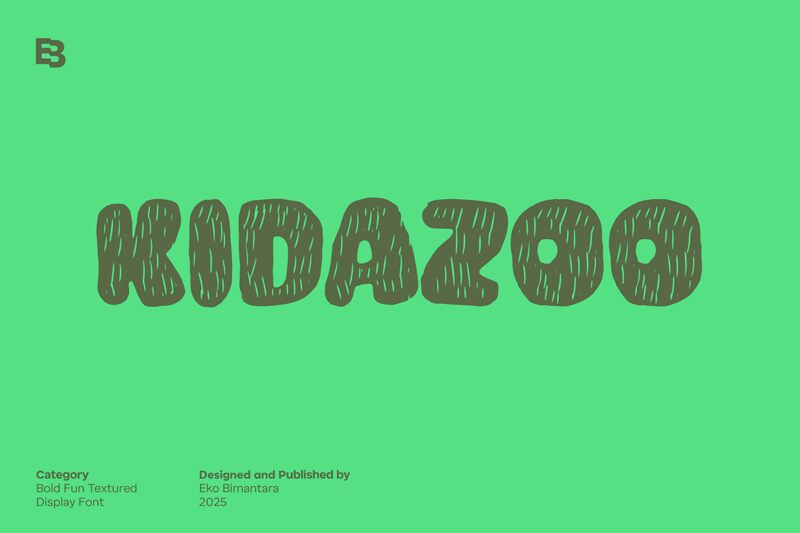
KIDAZOO
Kidazoo font by Eko Bimantara is a bold cartoon display font that brings whimsical and playful vibes to your various environments. The latter has irregular shapes, with no symmetry, yet it stays flawless vis-a-vis its readability aspect. Kidazoo is also retro-inspired, which allows many different mixtures of styles including colorful ones.
To have readers enjoying reading texts in this free display font, think signage and headlines for posters like food restaurant or entertainment gigs posters. Think package design for cereal or candy as playfulness matters here as well. Additional creative festival tickets can similarly be done with it!